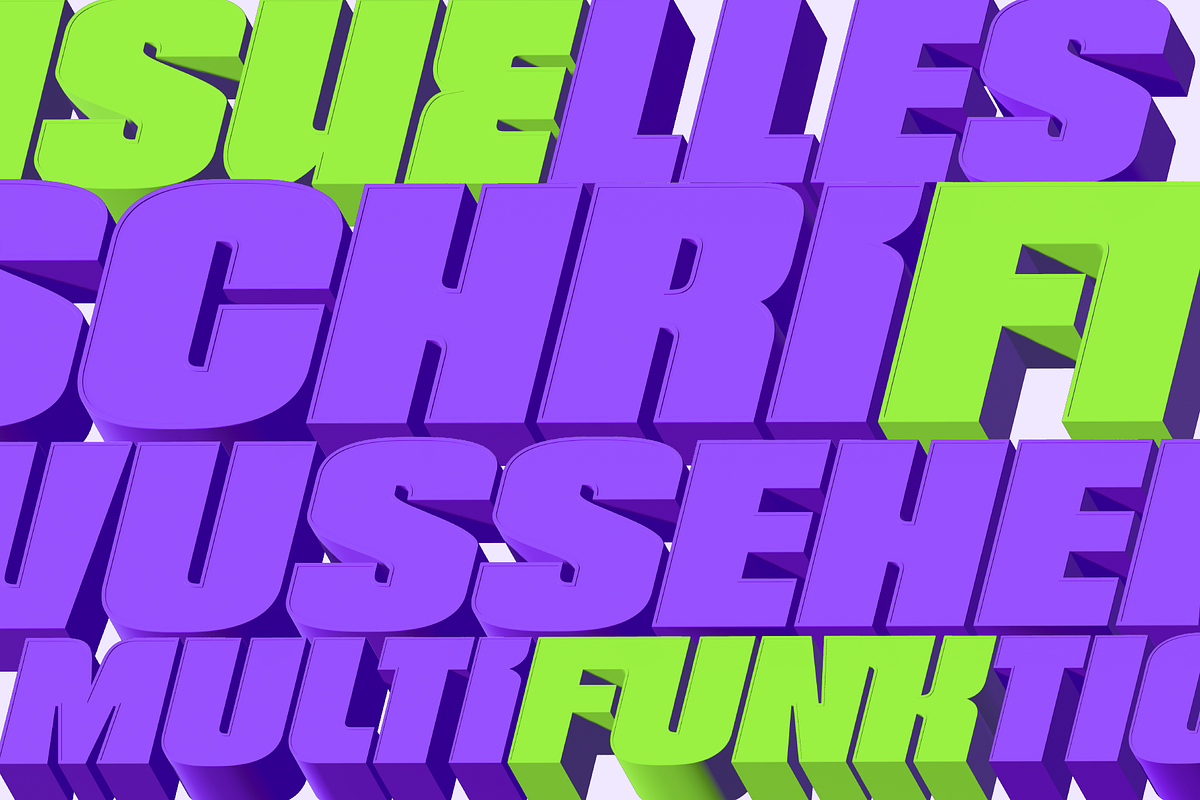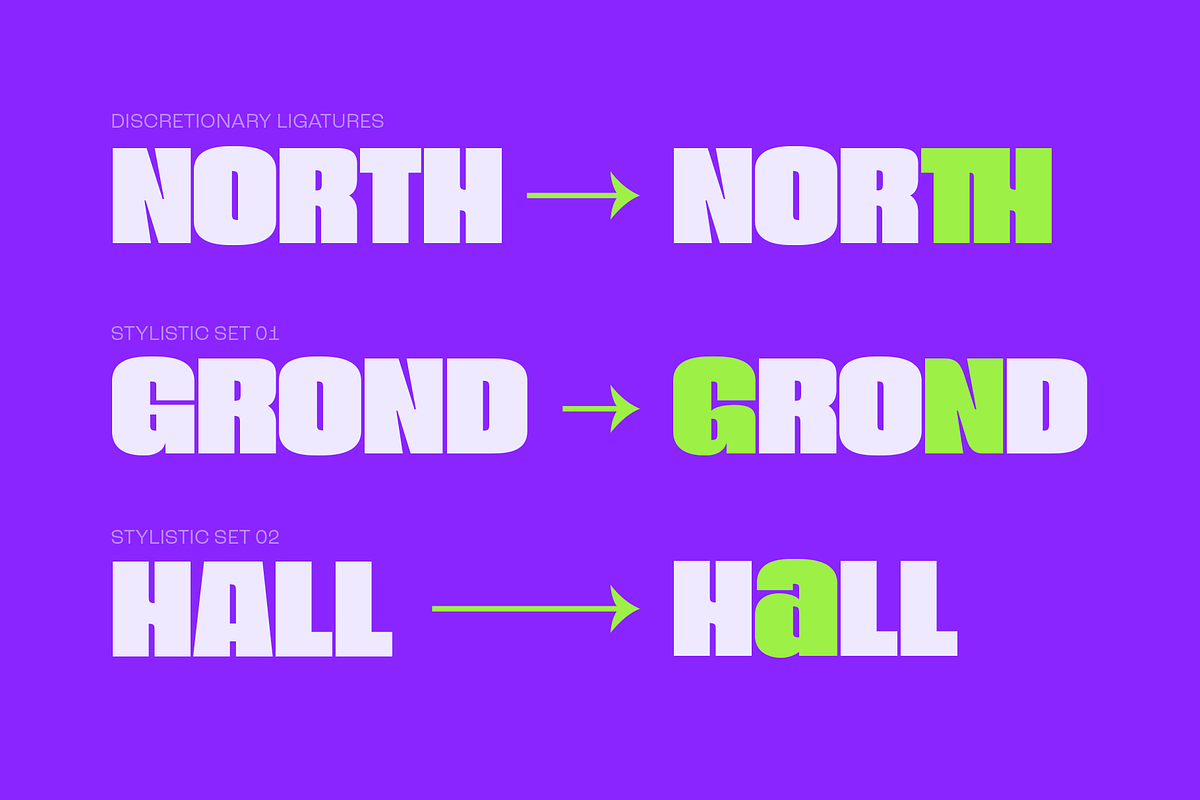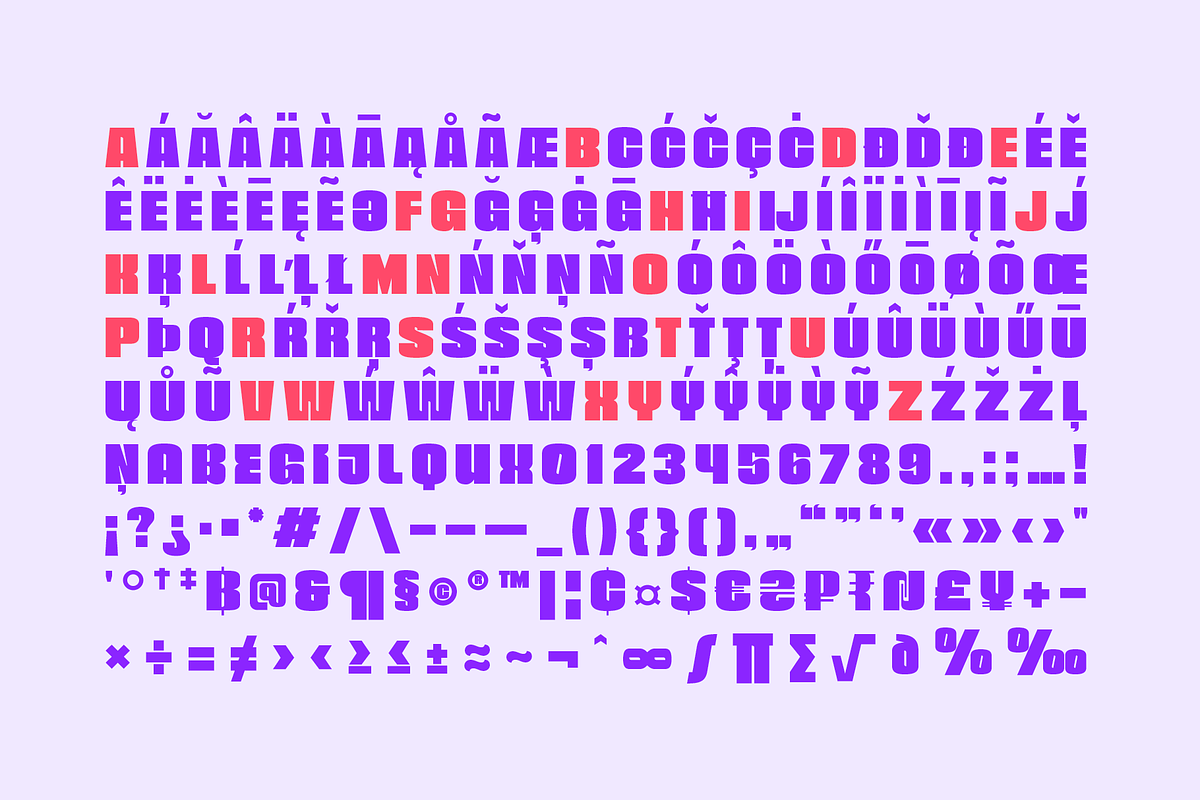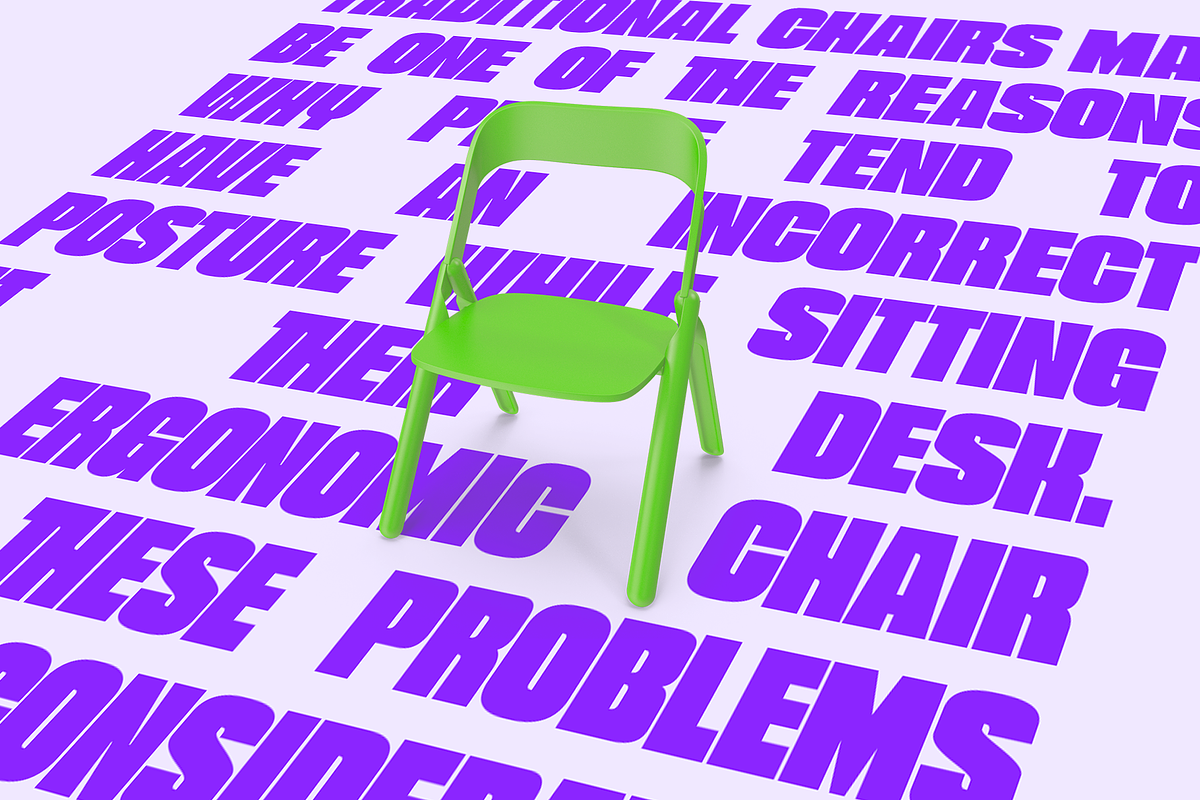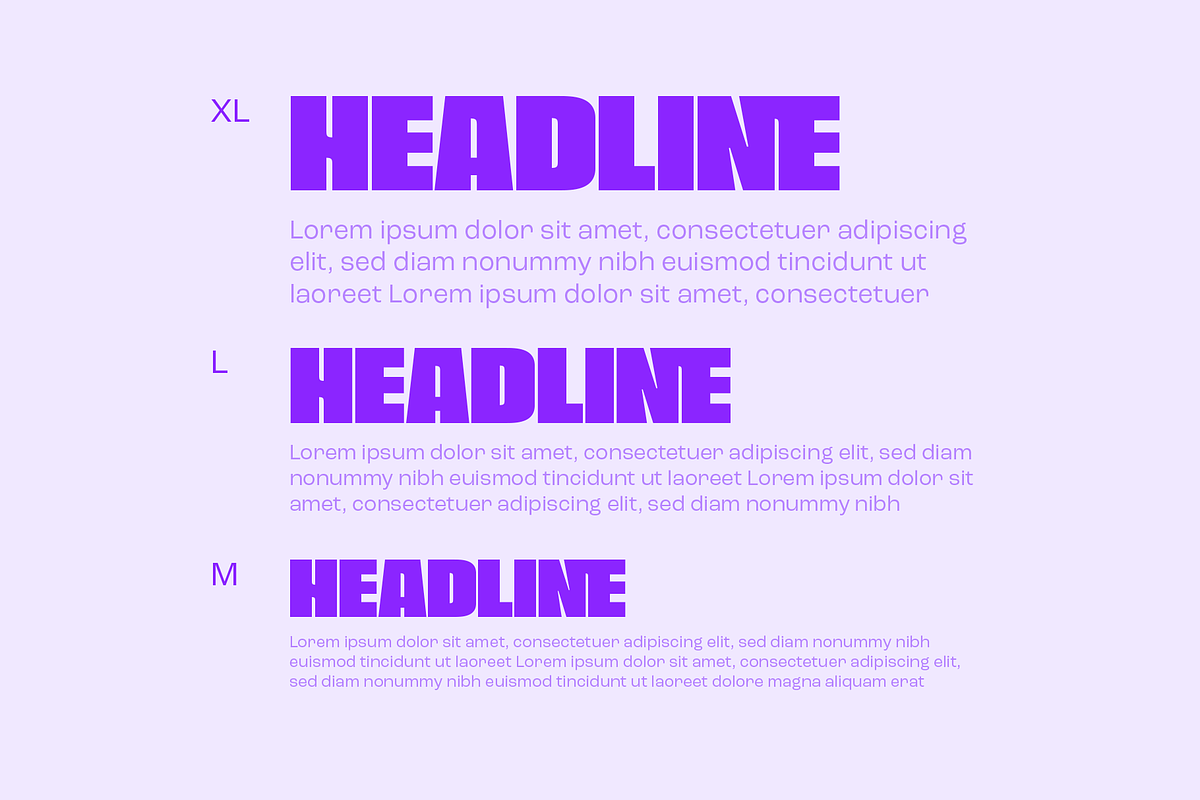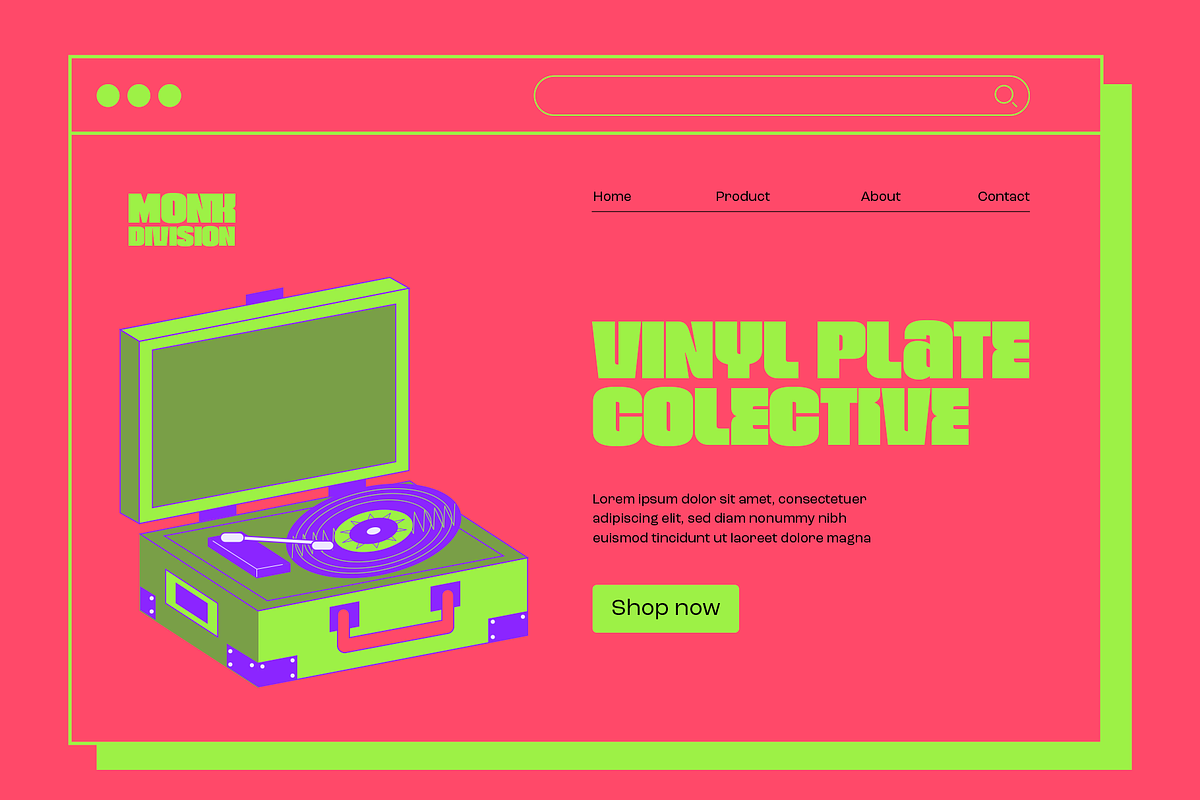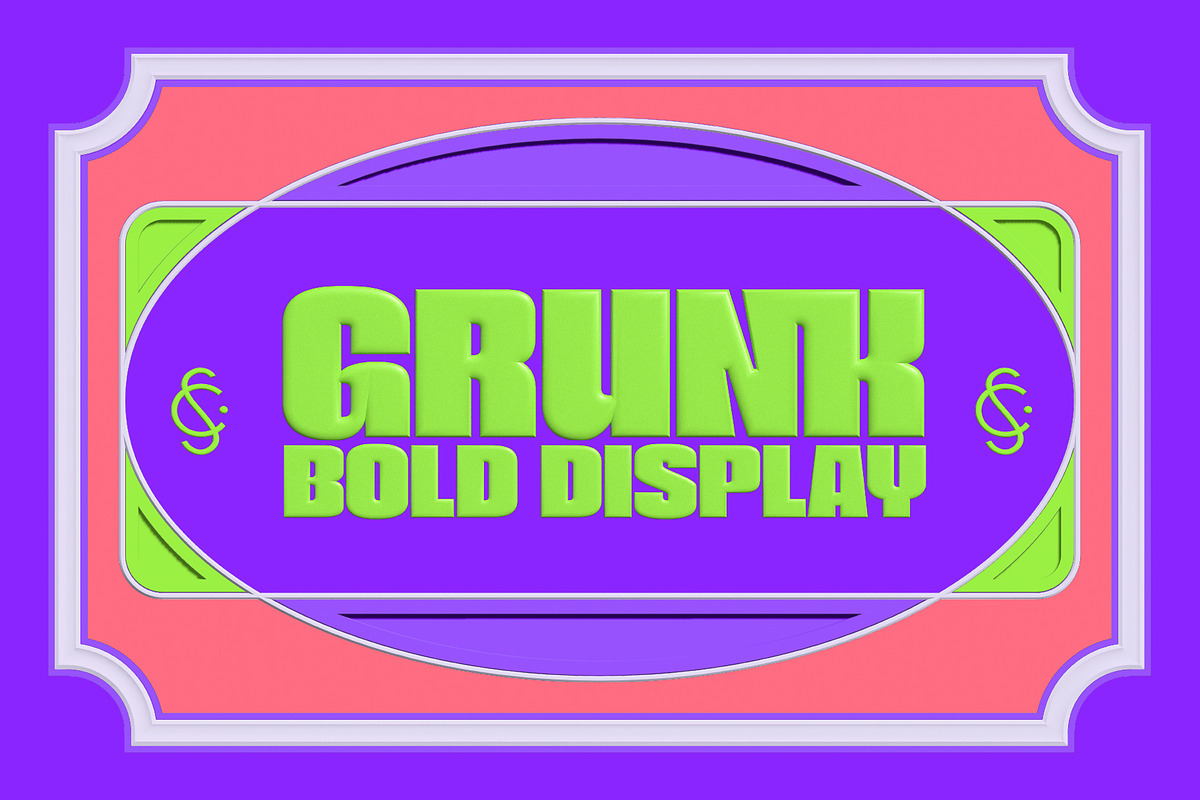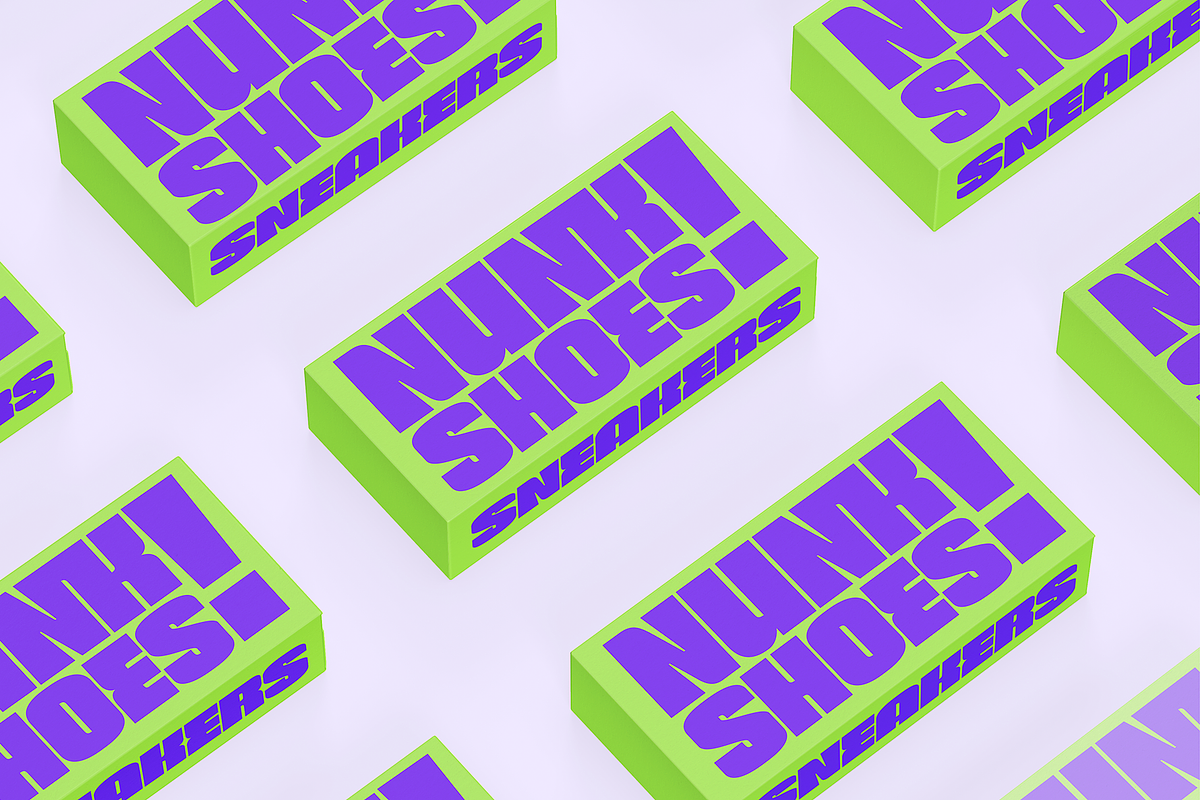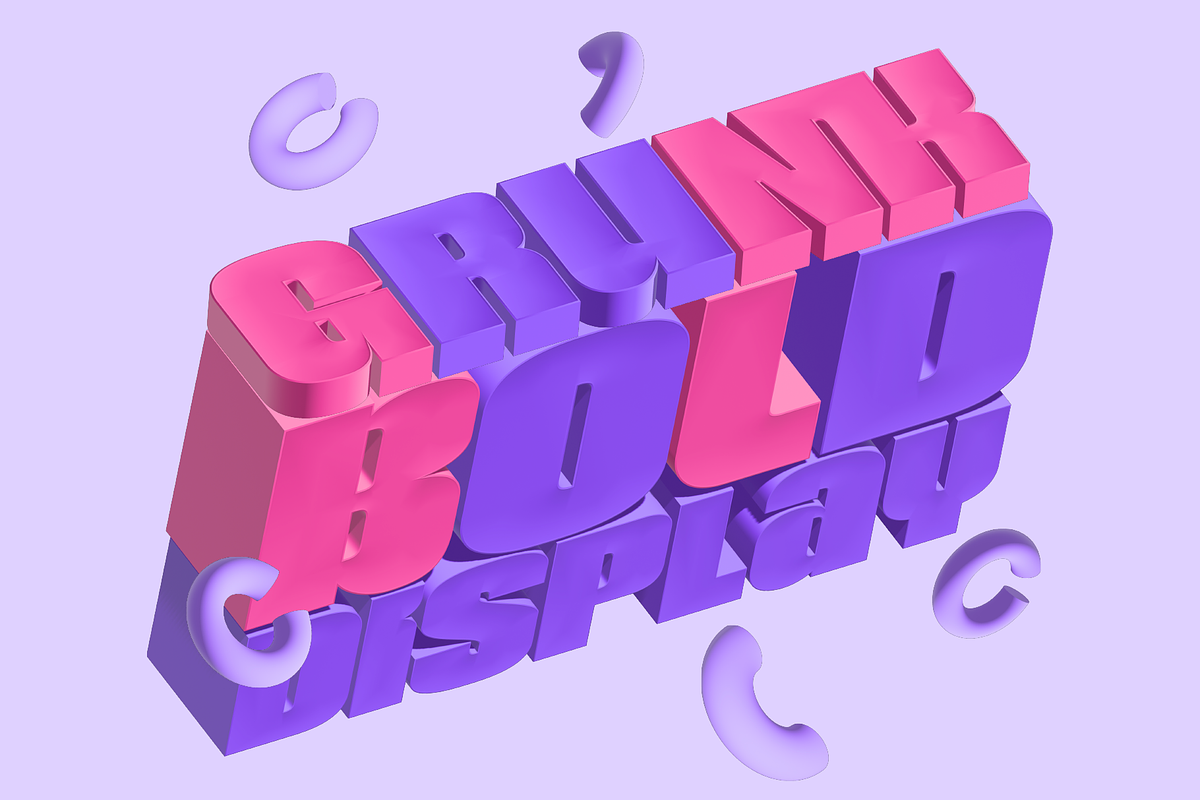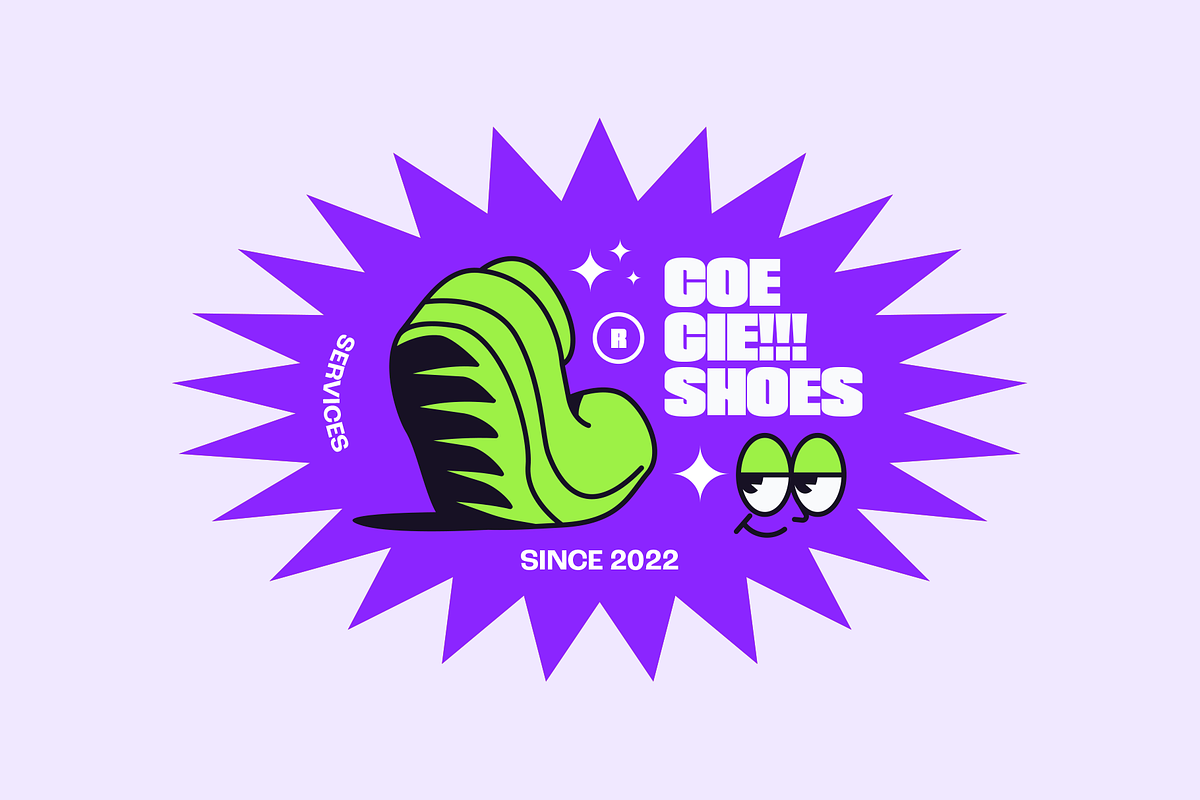
Grunk – Chunky & Groovy Typeface
Grunk is a Bold and Groovy Typeface with Retro Cartoon Vibes! Designed to make your designs pop, Grunk blends playfulness and boldness into one stunning typeface. Featuring chunky letters, groovy alternates, and experimental ligatures, this font is perfect for projects that demand a vibrant, nostalgic, and funky feel.
Ideal for posters, branding, album covers, stickers, logotypes, and editorial designs, Grunk is your go-to choice for a typeface that screams energy and character. Whether you’re creating Y2K-inspired graphics or bold modern visuals, Grunk has everything you need.
- Chunky & Playful Style – Retro, cartoon-inspired, and bold
- Groovy Alternates & Ligatures – Make every letter unique
- Extended Latin Support – Covers 100+ languages
- Perfect for branding, editorial, posters, packaging & more